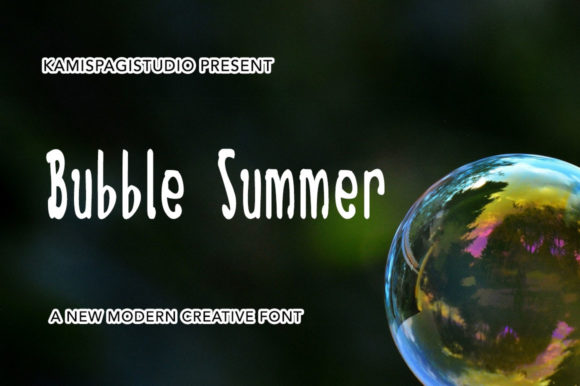
Bubble Summer Font: Elevate Your Designs with a Clean and Modern Handwritten Style
Are you searching for a font that adds a smart and cool touch to your web designs, logos, or craft projects? Look no further than the Bubble Summer Font. This clean and modern looking handwritten font is perfect for designers and crafters who want to give their work a fresh and youthful vibe. In this article, we’ll dive into the features and benefits of the Bubble Summer Font, and explore how you can use it to take your designs to the next level.
What is Bubble Summer Font?
Bubble Summer Font is a beautiful, handwritten font that exudes a sense of simplicity and elegance. Its clean lines and modern look make it perfect for a wide range of design applications, from web designs and logos to craft projects and social media graphics. The font’s simple yet stylish design ensures that it can be used in various contexts, from formal to informal, without losing its appeal.
Key Features of Bubble Summer Font
- Clean and Modern Design: The Bubble Summer Font boasts a clean and modern design that will give your work a fresh and contemporary look.
- Handwritten Style: The font’s handwritten style adds a personal touch to your designs, making them more relatable and engaging.
- Highly Versatile: The Bubble Summer Font can be used in a variety of design applications, including web designs, logos, craft projects, and social media graphics.
- Easily Readable: The font’s clear and legible design ensures that your text is easily readable, even at small sizes.
Benefits of Using Bubble Summer Font
So, why should you choose the Bubble Summer Font for your next design project? Here are just a few benefits of using this amazing font:
- Stand Out from the Crowd: The Bubble Summer Font’s unique design will help your work stand out from the crowd and grab the attention of your audience.
- Enhance Your Brand’s Image: By using a high-quality font like Bubble Summer, you can enhance your brand’s image and convey a sense of professionalism and style.
How to Use Bubble Summer Font
Using the Bubble Summer Font is easy. Here are a few tips to get you started:
- Web Designs: Use the Bubble Summer Font to add a personal touch to your website’s design. It’s perfect for headings, titles, and other display text.
- Logos: The Bubble Summer Font is ideal for creating logos that are both modern and elegant.
- Craft Projects: Add a touch of style to your craft projects, such as scrapbooking, card making, and journaling.
- Social Media Graphics: Use the Bubble Summer Font to create eye-catching social media graphics that will help you stand out from the crowd.
Tips for Pairing Bubble Summer Font with Other Fonts
Pairing the Bubble Summer Font with other fonts can help you create a unique and visually appealing design. Here are a few tips for pairing fonts:
- Contrast with a Serif Font: Pair the Bubble Summer Font with a serif font, such as Times New Roman or Georgia, to create a nice contrast between the two fonts.
- Match with a Similar Font: Pair the Bubble Summer Font with a similar font, such as a handwritten or script font, to create a cohesive look.
- Experiment with Font Sizes: Experiment with different font sizes to create visual interest and hierarchy in your design.
In conclusion, the Bubble Summer Font is a clean and modern looking handwritten font that is perfect for designers and crafters who want to add a smart and cool touch to their work. Its versatility, readability, and ease of use make it an excellent choice for a wide range of design applications. Whether you’re creating web designs, logos, craft projects, or social media graphics, the Bubble Summer Font is sure to elevate your designs to the next level.